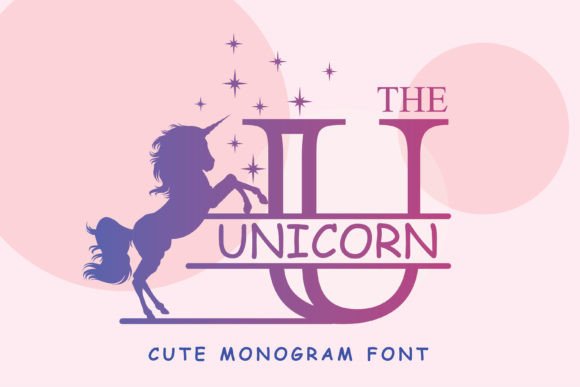
Introducing The Unicorn Monogram Font, a delightful decorative font designed by susecreative. Immerse yourself in its enchanting charm and let your creativity soar to new heights. This font is not just a collection of letters; it's a whimsical journey that will captivate your imagination.
With its unique and authentic feel, The Unicorn Monogram Font is perfect for adding a touch of magic to your projects. Whether you're designing stationary art, crafting eye-catching social media posts, or creating adorable greeting cards, this font will bring a smile to anyone's face.
Let's talk about the ornaments. Oh, the ornaments! The Unicorn Monogram Font boasts a plethora of lovely ornaments that will take your designs from ordinary to extraordinary. From delicate flourishes to intricate patterns, these decorative elements will elevate your creations and make them truly stand out.
Imagine the joy of receiving a personalized greeting card adorned with this whimsical font. Each stroke is filled with love and care, making every word feel like a warm embrace. Your friends and family will be delighted by the thoughtfulness and creativity behind your creations.
But it doesn't stop there. The Unicorn Monogram Font is a versatile companion for all your design needs. Its captivating allure makes it suitable for a wide range of projects, from branding and logo design to wedding invitations and party decorations. Let your imagination run wild and watch as this font brings your visions to life.
Now, let's talk about emotions. This font is more than just letters on a page; it evokes feelings of joy, wonder, and nostalgia. It transports you to a world where unicorns roam freely and dreams come true. With every stroke, you'll feel a surge of excitement and inspiration, ready to conquer the creative realm.
The Unicorn Monogram Font is your ticket to creating memorable designs that leave a lasting impression. Its keyword-rich nature ensures that your creations will be easily discovered by users searching for that touch of magic. Stand out from the crowd and let your designs shine like never before.
In conclusion, The Unicorn Monogram Font is a must-have for anyone seeking to add a sprinkle of enchantment to their designs. Its authentic feel, adorable ornaments, and captivating allure make it the perfect choice for stationary art, social media posts, and greeting cards. Let your creativity run wild and embark on a whimsical journey with this extraordinary font.